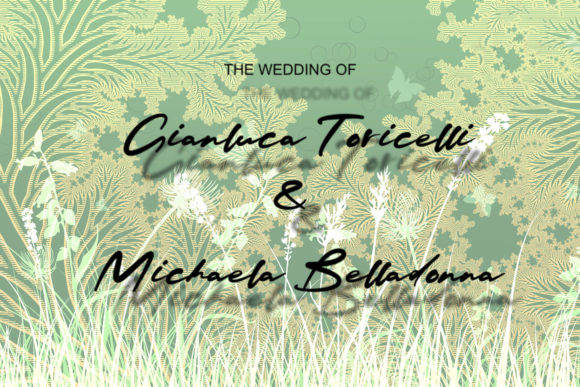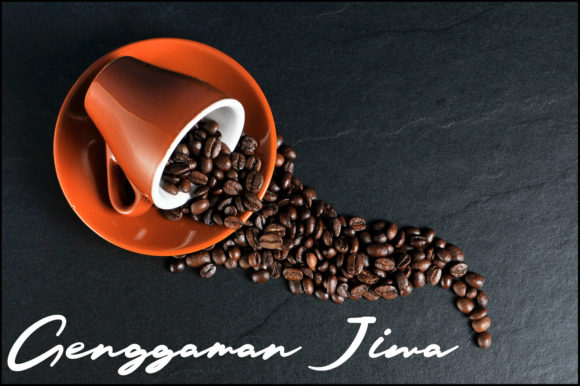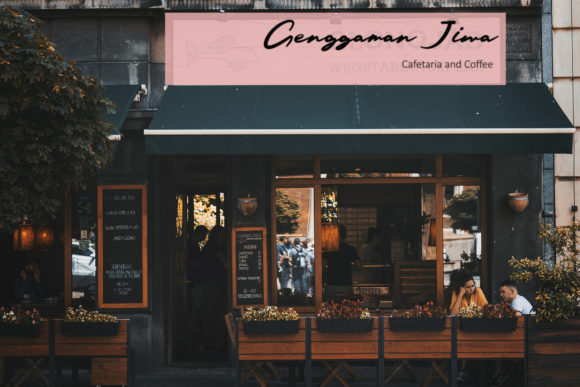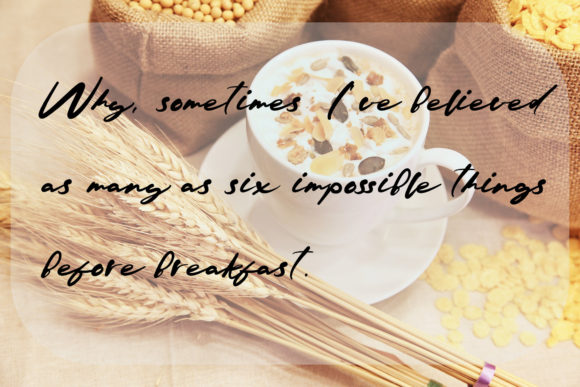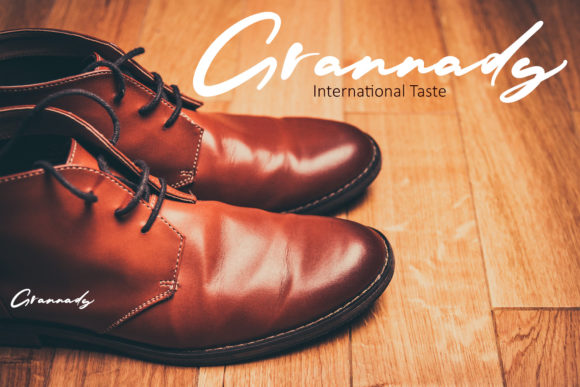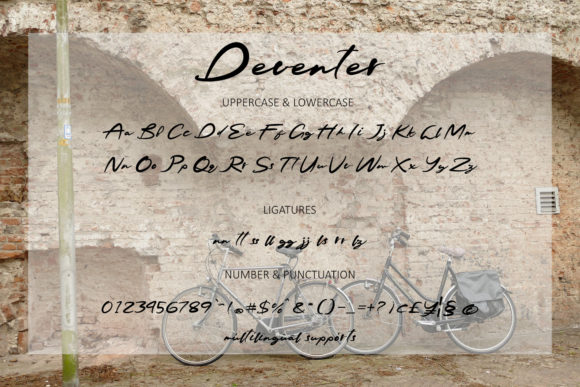
Introducing Deventer Font: Elevate Your Creative Projects with Elegance and Classic Flair
Are you on the hunt for a font that exudes sophistication and timeless charm? Look no further than Deventer, an elegant and classic handwritten font designed to transform your creative endeavors into stunning works of art. Whether you’re a designer looking to elevate your Instagram aesthetic or a crafter seeking the perfect calligraphy script for your DIY projects, Deventer is the perfect choice.
The Essence of Deventer Font
Deventer is more than just a font – it’s a statement piece. Its elegant, flowing lines and classic handwritten style evoke a sense of nostalgia and refinement, making it perfect for a wide range of applications. From wedding invitations and branding materials to social media graphics and craft projects, Deventer adds a touch of sophistication and whimsy to any design.
Why Choose Deventer Font?
- Elegant and Classic Design: Deventer’s timeless style ensures that your designs will never go out of fashion.
- Versatile: Perfect for a variety of projects, from digital graphics to print materials and DIY crafts.
- Easy to Read: Despite its elegant nature, Deventer remains clear and legible, making it suitable for both headings and body text.
- Handwritten Charm: Adds a personal and unique touch to your designs, setting them apart from more generic fonts.
Using Deventer for Instagram and Social Media
In the fast-paced world of social media, standing out is crucial. Deventer font can help elevate your Instagram feed or any social media graphics with its distinctive and elegant style. Use it for:
- Quotes and Captions: Add a touch of elegance to your posts and stories.
- Branding: Consistency in your font choice helps in building a recognizable brand identity.
- Graphics and Announcements: Make your promotional graphics, announcements, or event invites more appealing.
Deventer in DIY Projects and Calligraphy
For crafters and DIY enthusiasts, Deventer offers endless possibilities. Its calligraphy script style is perfect for:
- Hand Lettering Projects: Bring your journaling, lettering, and drawing projects to life with a sophisticated touch.
- DIY Crafts: Elevate your homemade cards, gift tags, and decorations with elegant script.
- Paper Crafting: Ideal for scrapbooking, making custom invitations, or any paper craft that requires a beautiful, handwritten font.
Tips for Using Deventer Effectively
To make the most out of Deventer, consider the following tips:
- Mix and Match: Combine Deventer with simpler fonts for contrast and visual interest.
- Play with Colors: While Deventer shines in black, experimenting with colors can add a unique spin to your designs.
- Adjust Size and Weight: Experiment with different sizes and weights to ensure hierarchy and emphasis in your text.
Deventer font is a versatile and elegant addition to any designer’s or crafter’s toolkit. Its classic yet handwritten charm makes it perfect for a multitude of projects, from professional branding materials to personal DIY crafts. By incorporating Deventer into your creative process, you’re not just choosing a font – you’re elevating your art to a new level of sophistication and beauty. So why wait? Dive into the world of Deventer and let your creativity shine like never before!